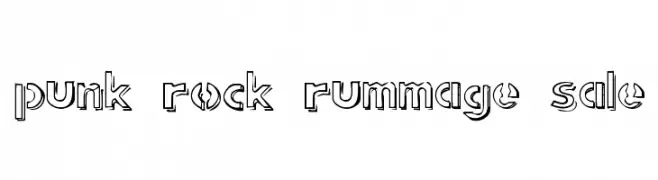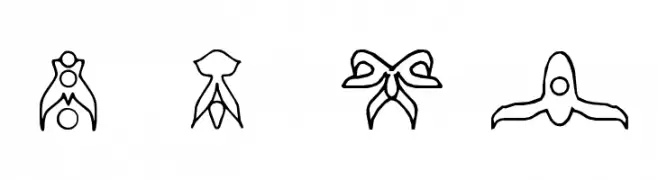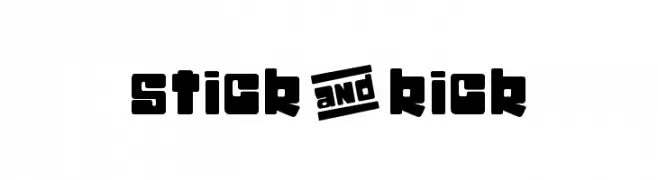
A bold, edgy font with a punk rock aesthetic and shadowed outline.
A bold, italic font with a futuristic and dynamic style.
A bold, geometric font with a modern, edgy style and high contrast.
A sleek, modern sans-serif font with an italic slant and uniform stroke width.
A collection of intricate, abstract symbols with minimalistic numerals.
A bold, modern sans-serif font with clean lines and strong visual impact.
A bold, geometric font with a modern and slightly retro style.